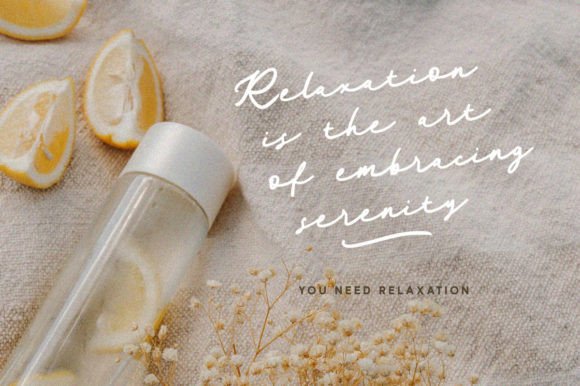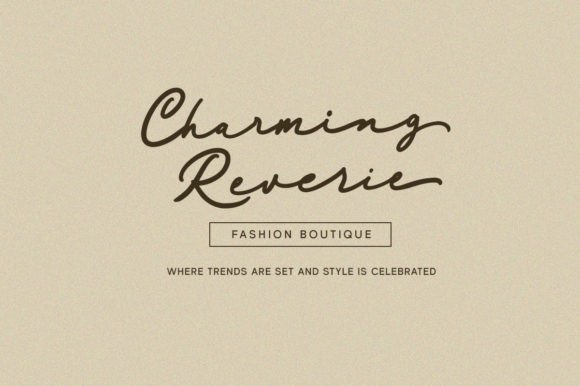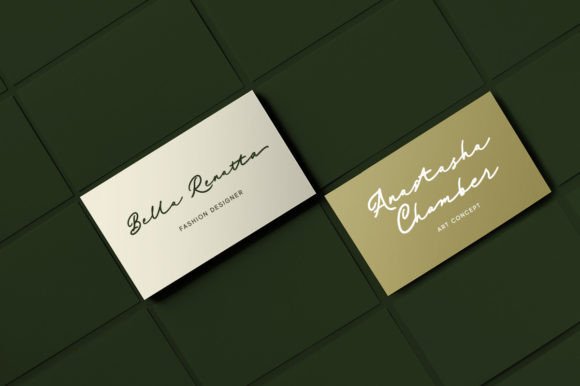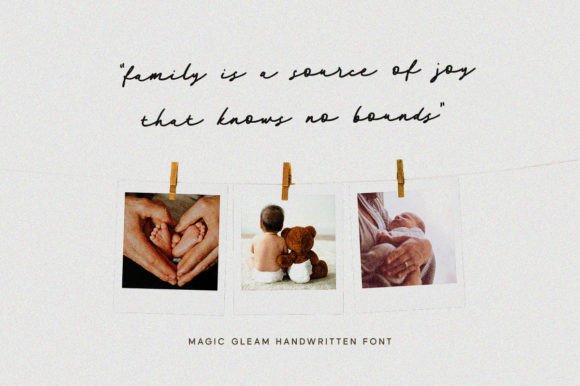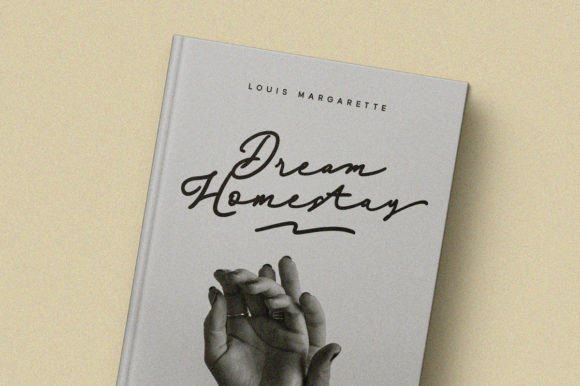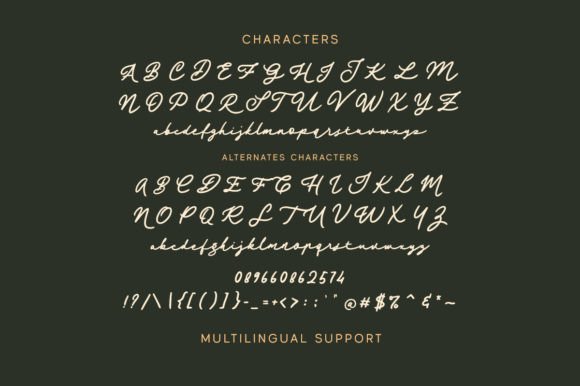
Introduction to Magic Gleam Font
Introducing Magic Gleam, a charming script hand-written font that will add a touch of casual to your designs.
This font has charming vibes that make it perfect for projects that require a friendly and approachable feel The letters are slightly wider than usual, giving it a modern yet comfortable appearance.
Key Features of Magic Gleam Font
Why Choose Magic Gleam Font?
Magic Gleam Font offers exceptional quality and versatility, making it a valuable addition to your design toolkit. Whether you’re creating for personal projects or commercial use, Magic Gleam Font delivers professional results.